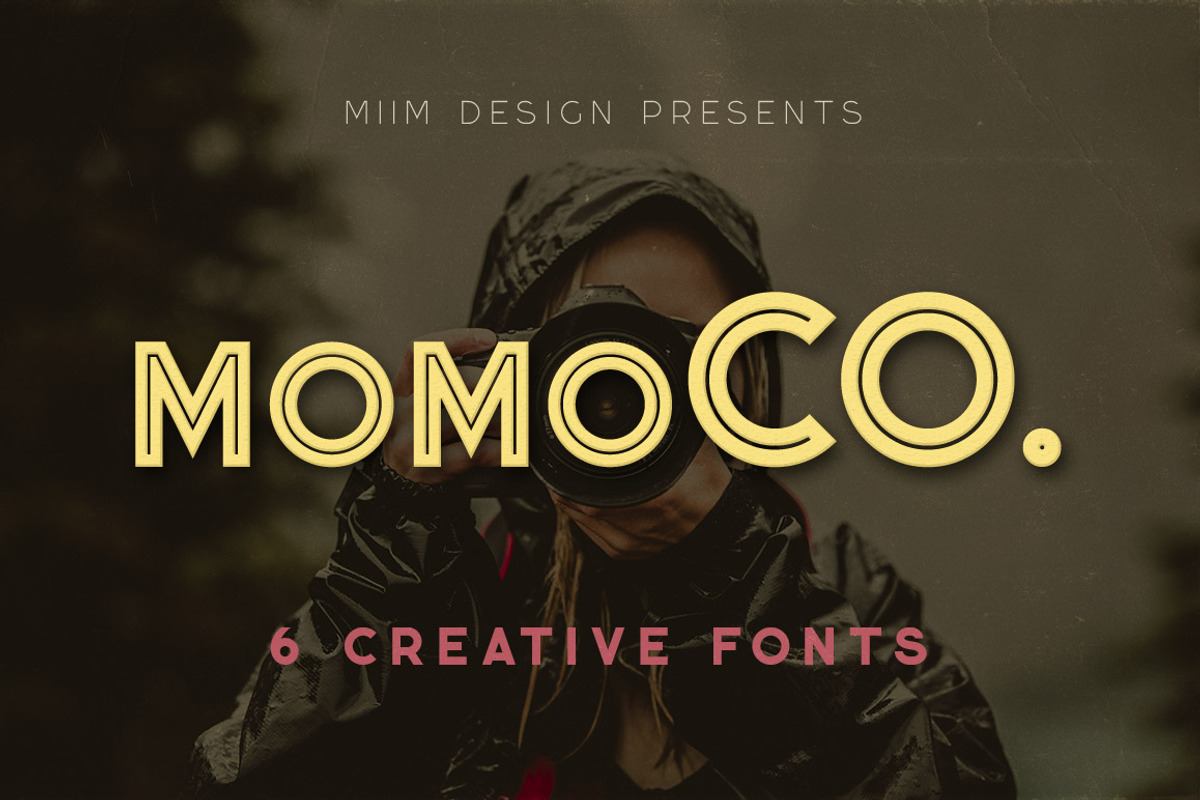
Momoco - Display Font Free Download
Momoco - Display Font Free Download is a bold and unique typeface designed to make a statement. With its eye-catching letterforms and striking design, this font is perfect for headlines, posters, logos, and any design project that requires a strong, modern aesthetic. Whether you're creating promotional materials, brand identities, or creative designs, Momoco adds a touch of personality and flair to your typography.
The font's clean and distinct style ensures that it stands out while remaining highly legible, making it ideal for both digital and print media. Its versatile design allows for use in a wide range of creative projects.